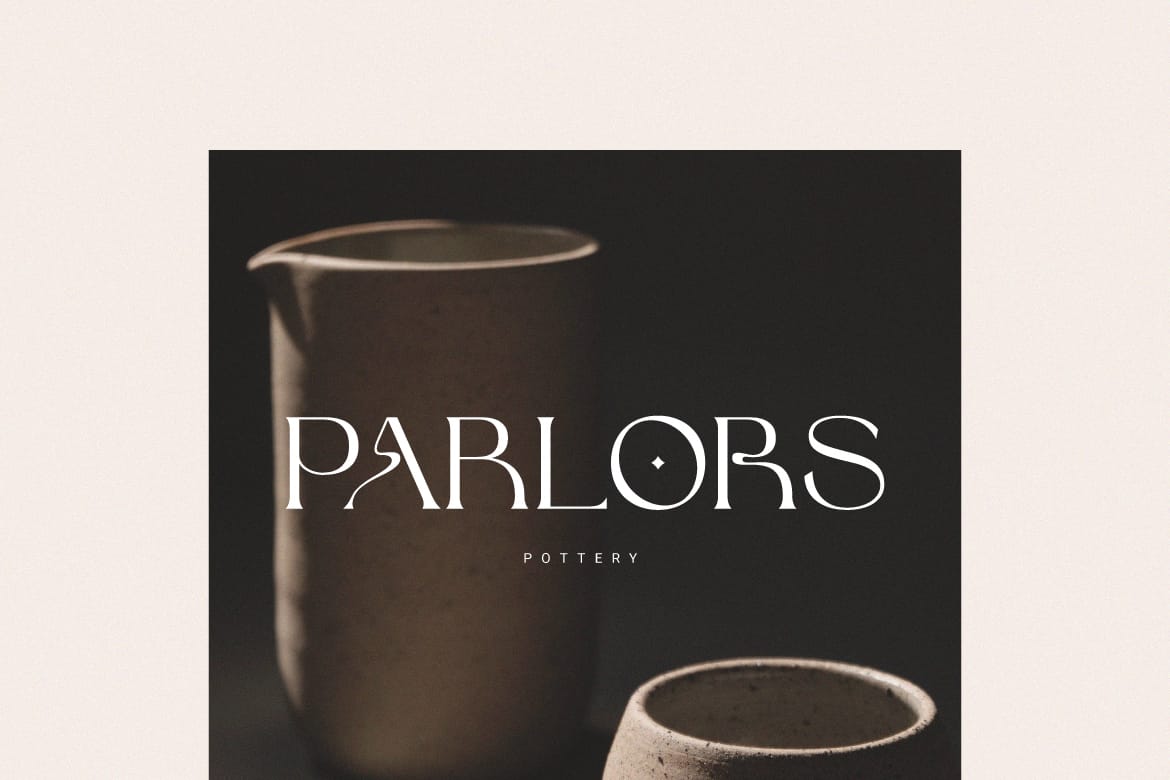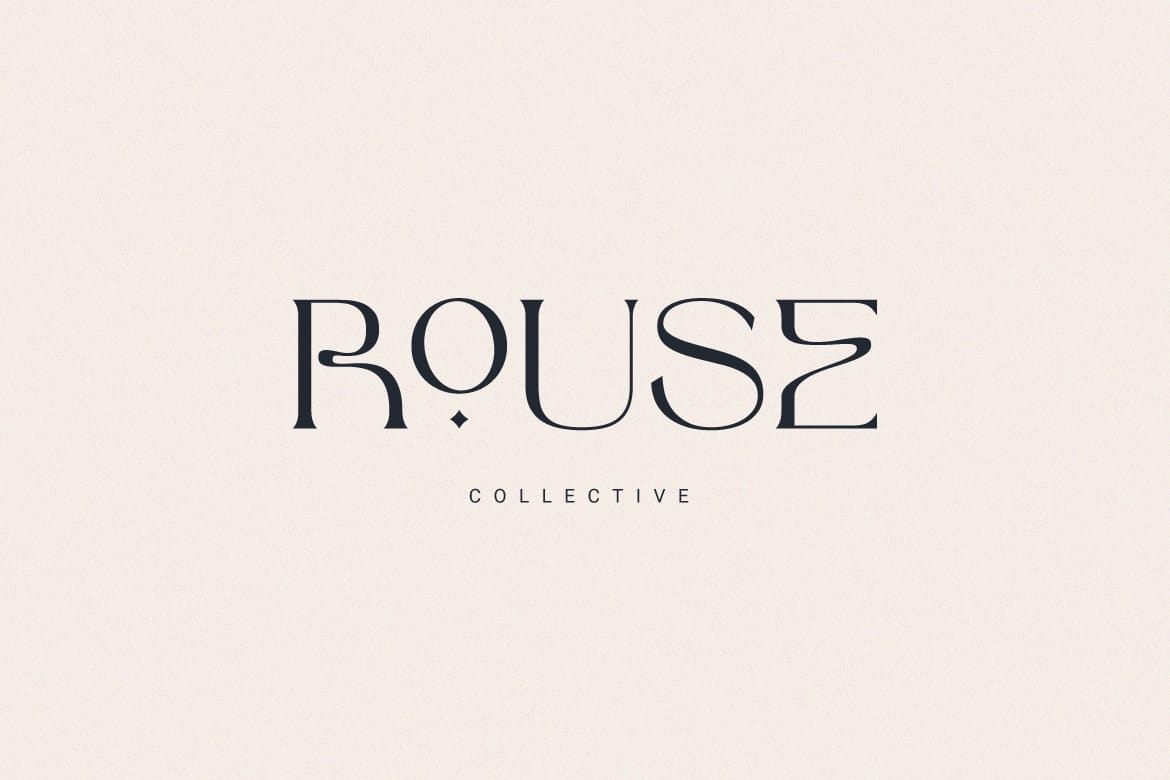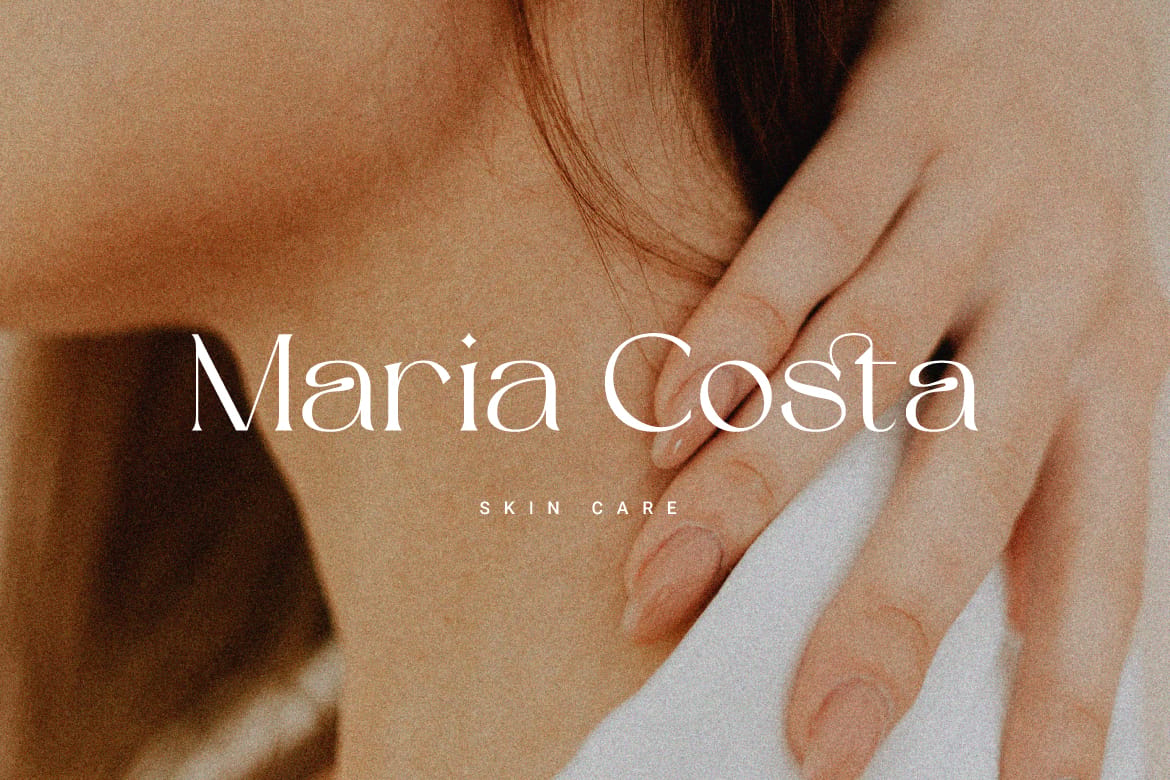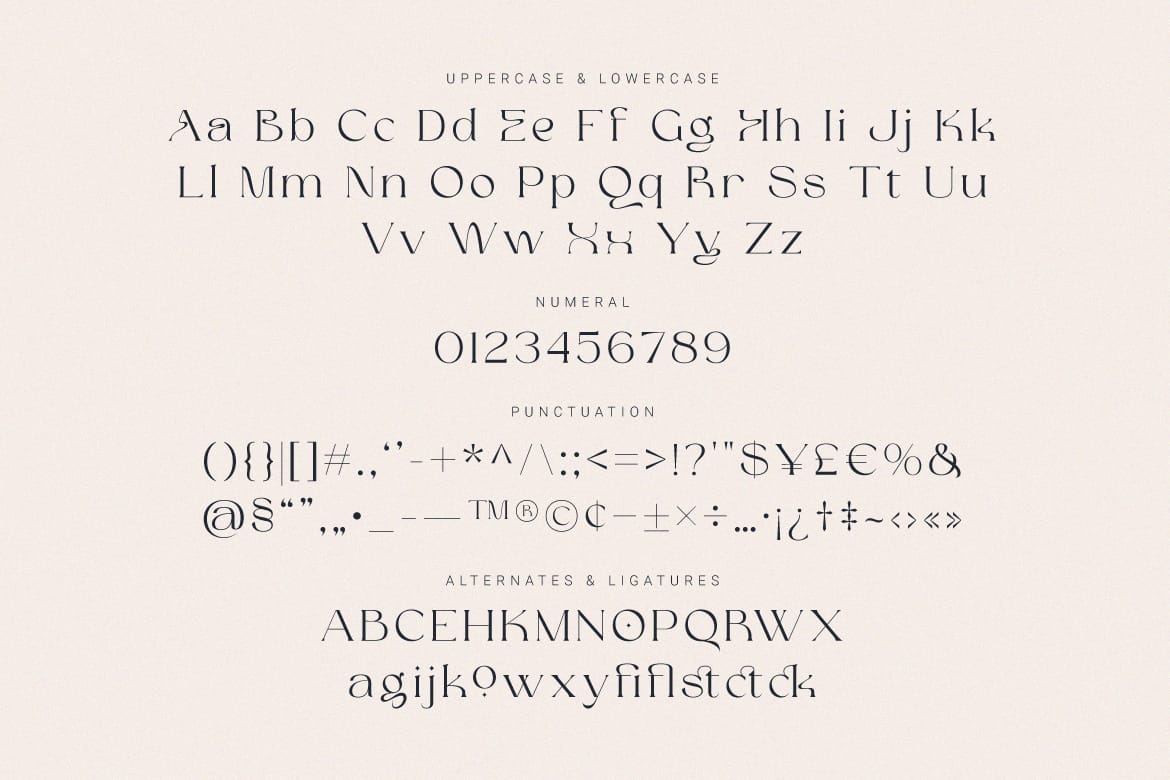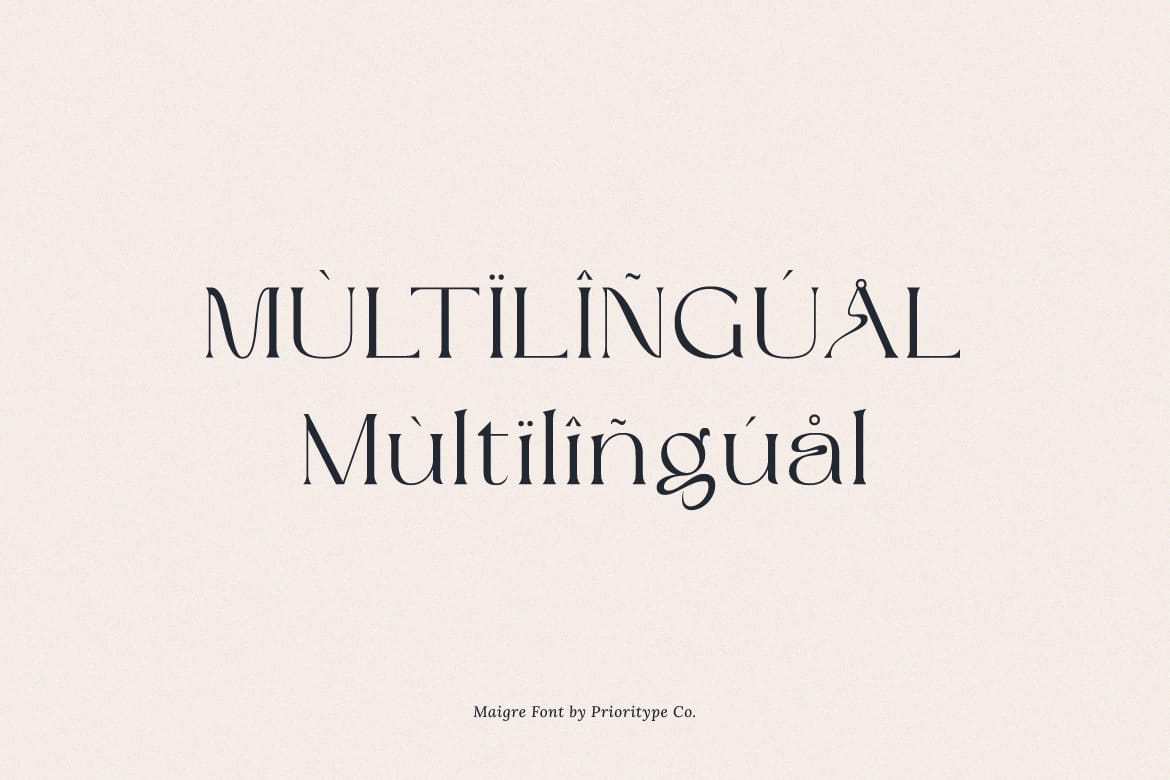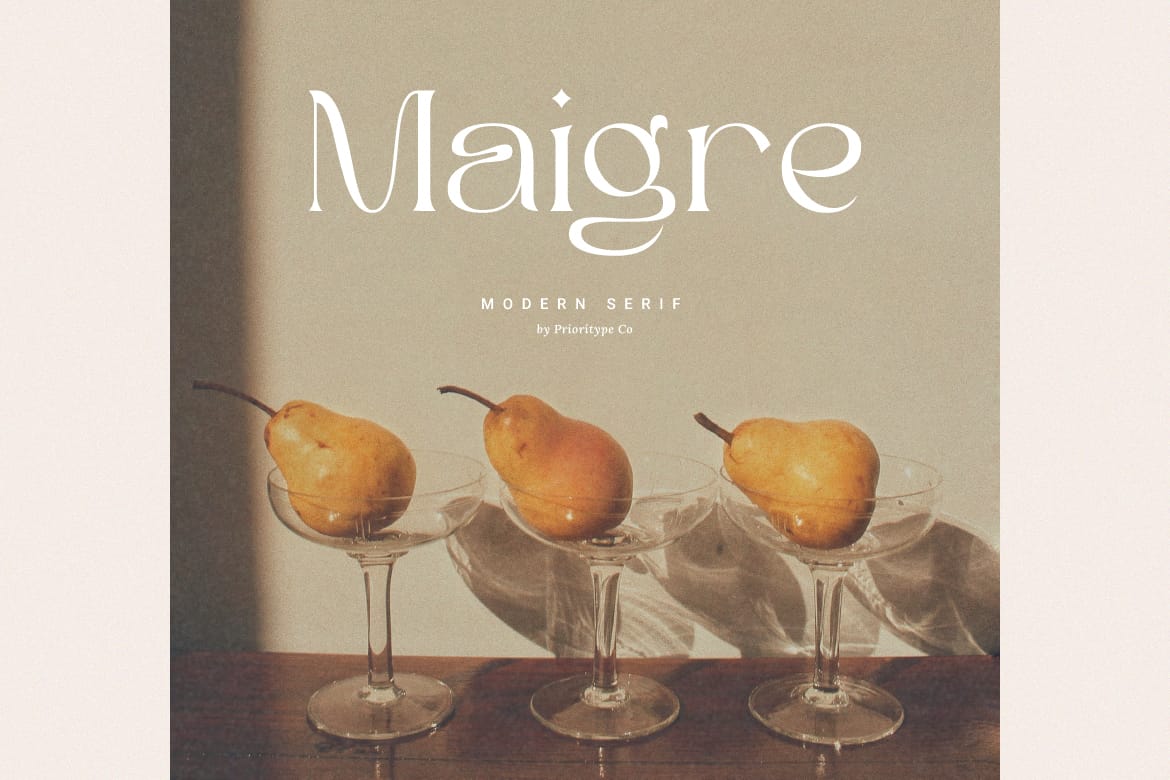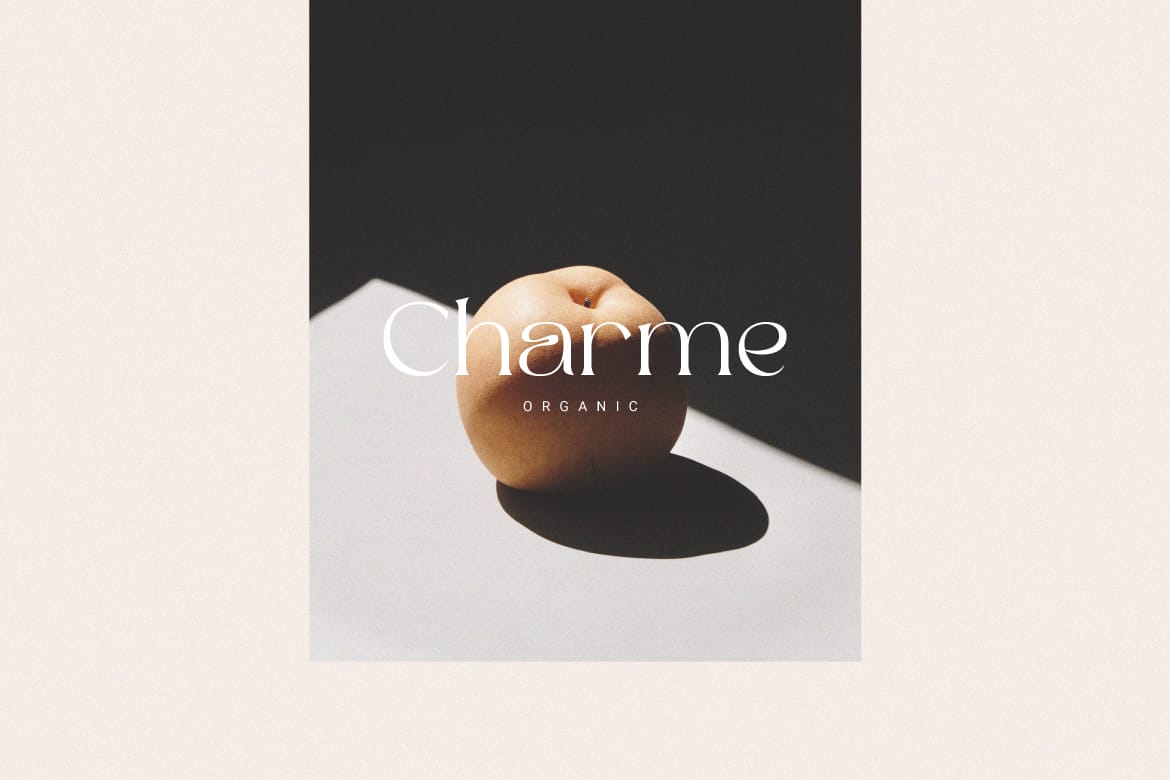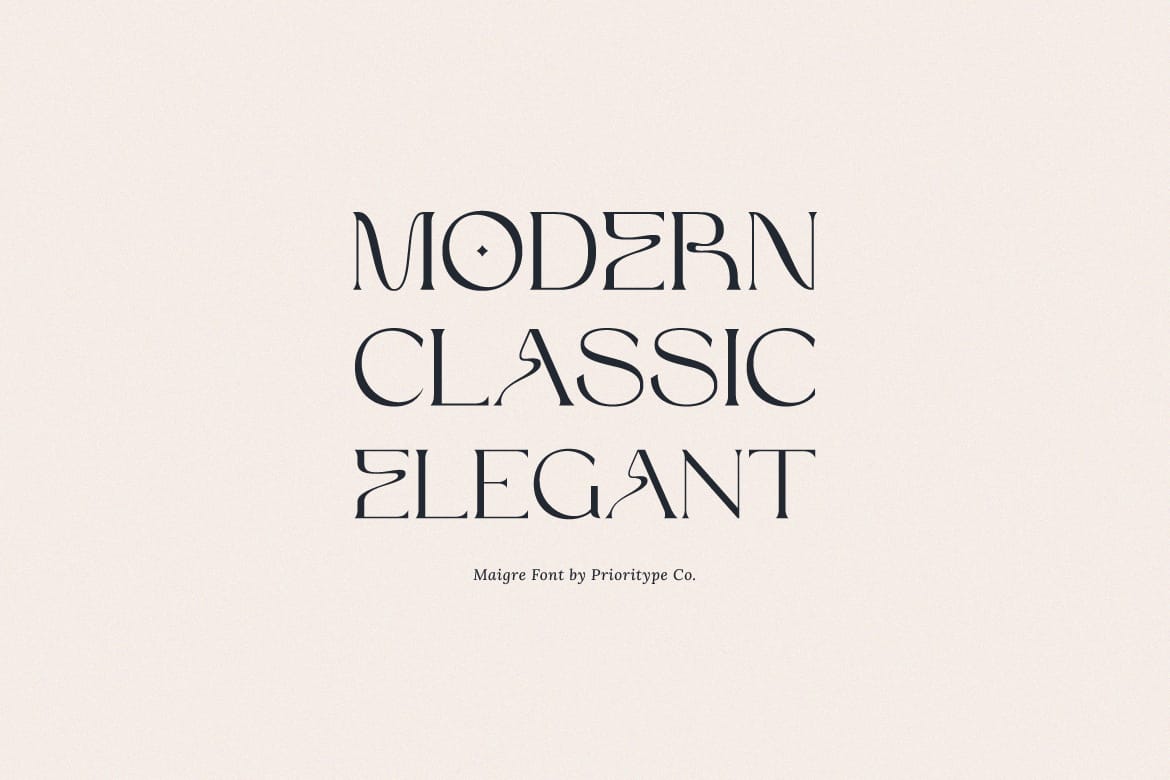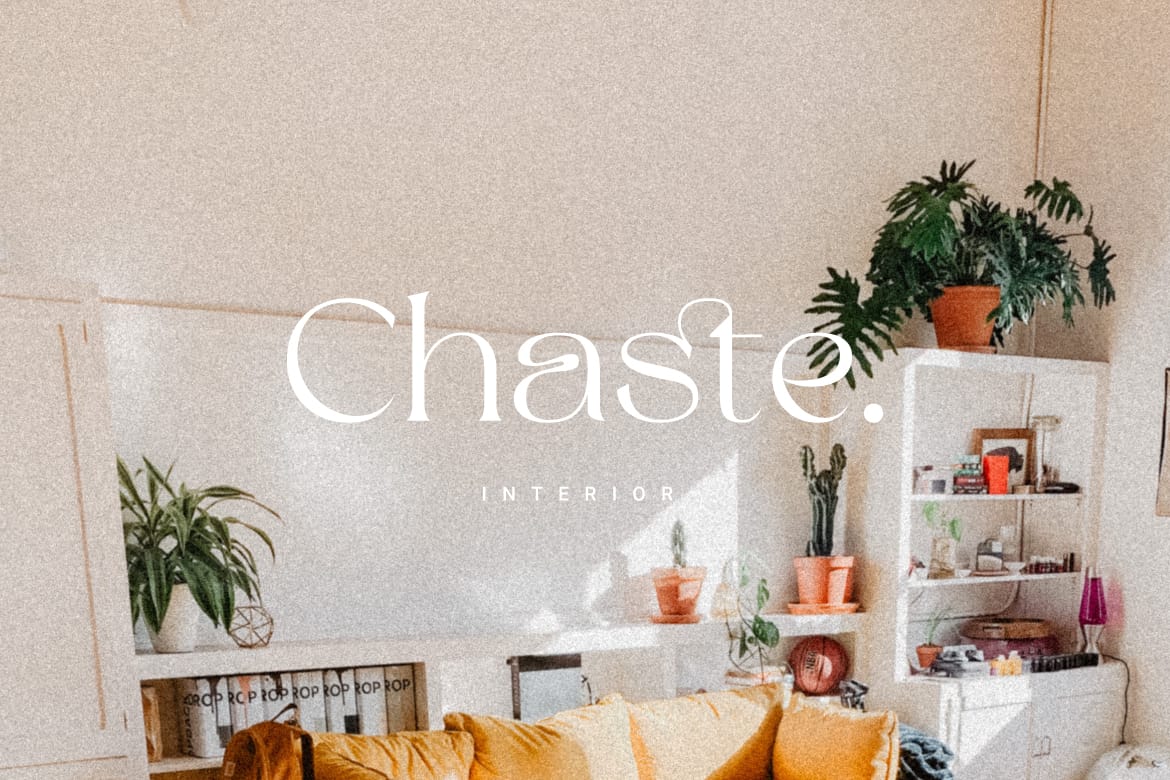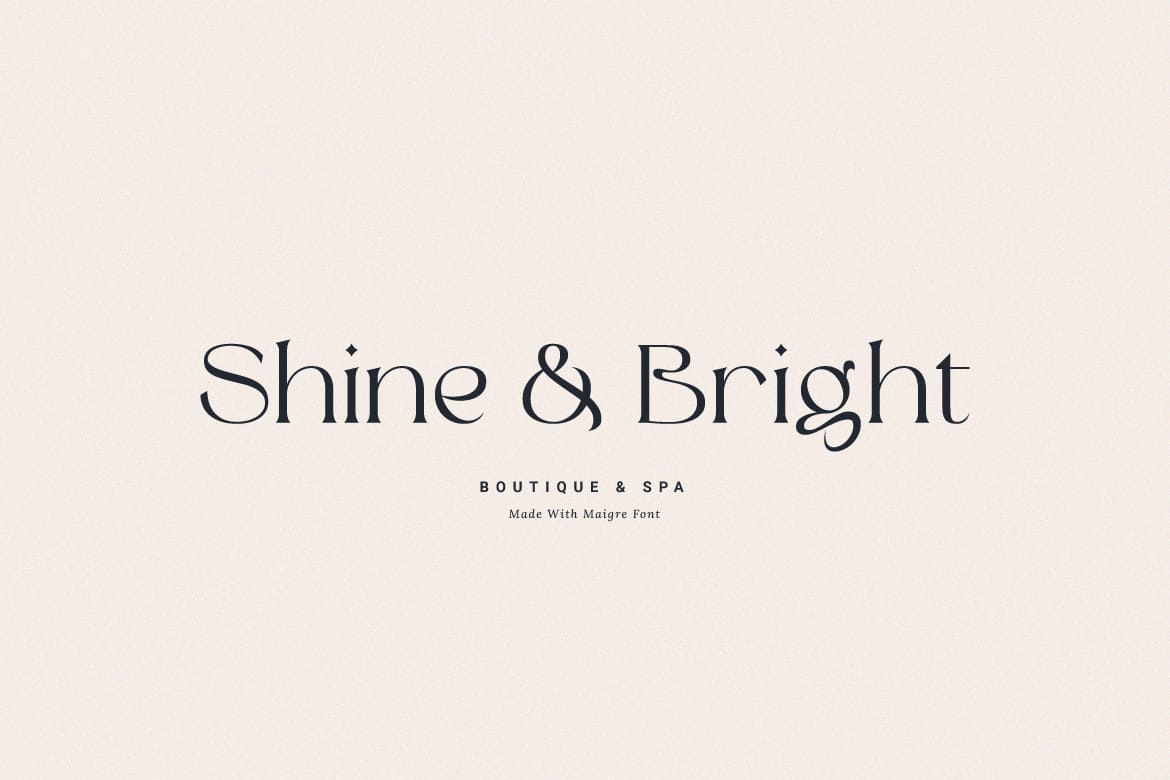
Maigre - Modern Serif
"Maigre Font" is a modern, classic and elegant serif typeface. It is suitable for branding designs, logos, magazines and social media posts. Features: Uppercase, Lowercase, Numeral, Punctuation, Multilingual, Alternates, Ligatures & PUA Encoded. Obtained file format: Otf & Ttf. For any questions please contact me :)
• Modern elegant serif typeface
• Ligatures, alternates, PUA encoded